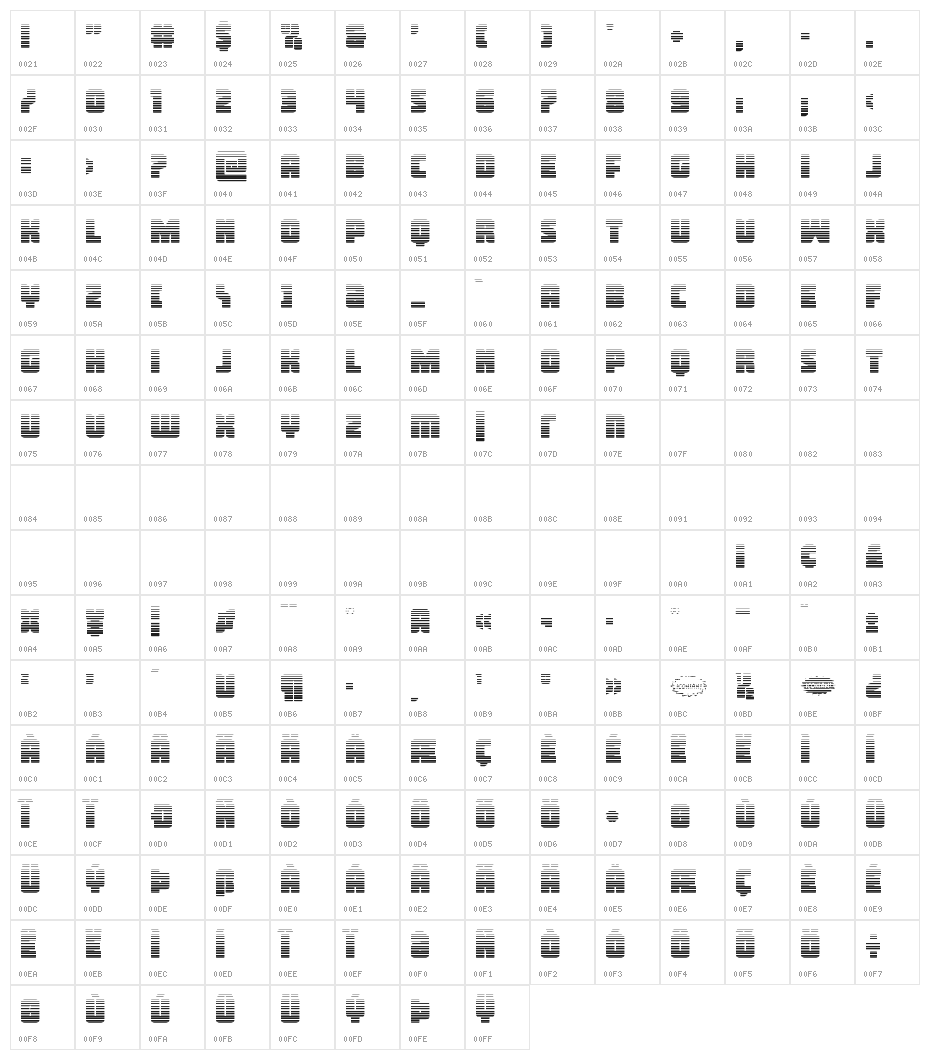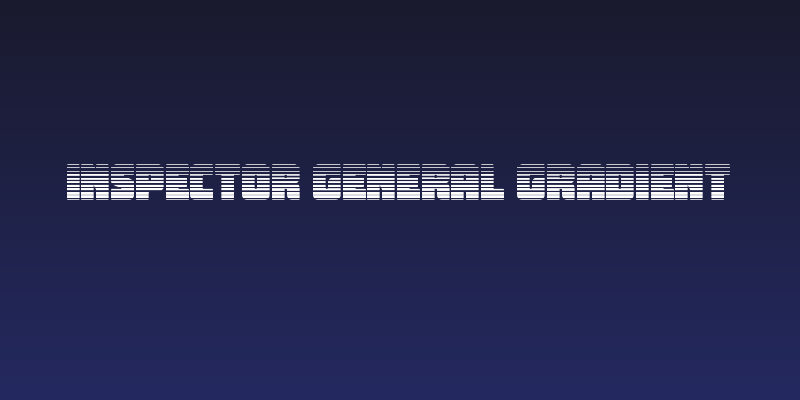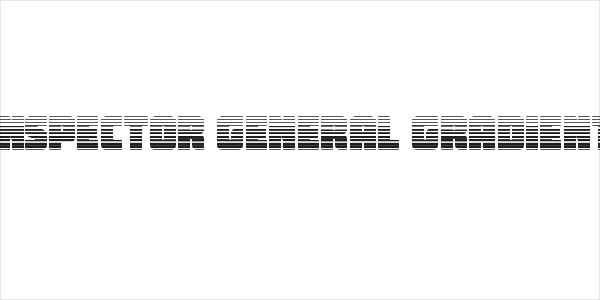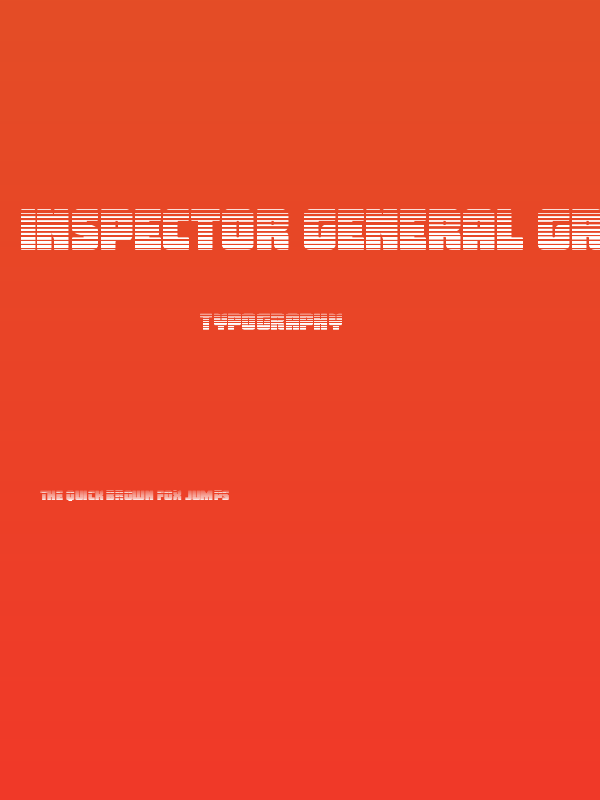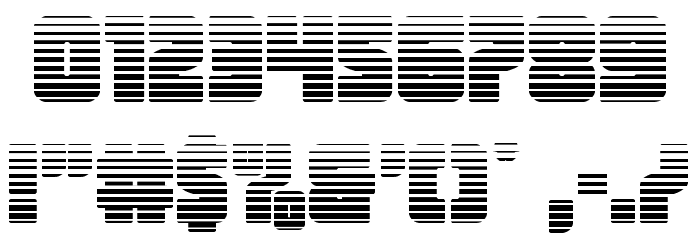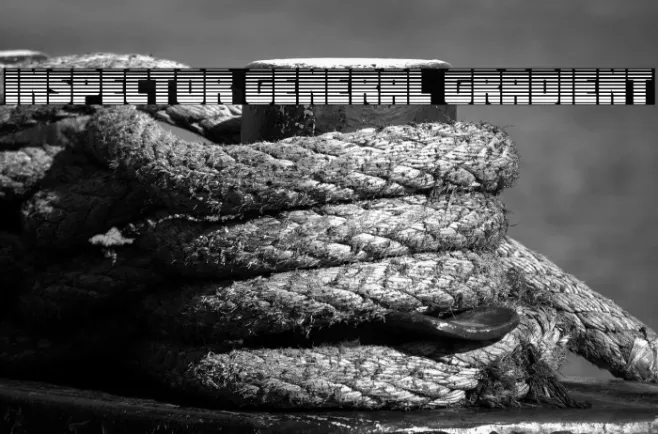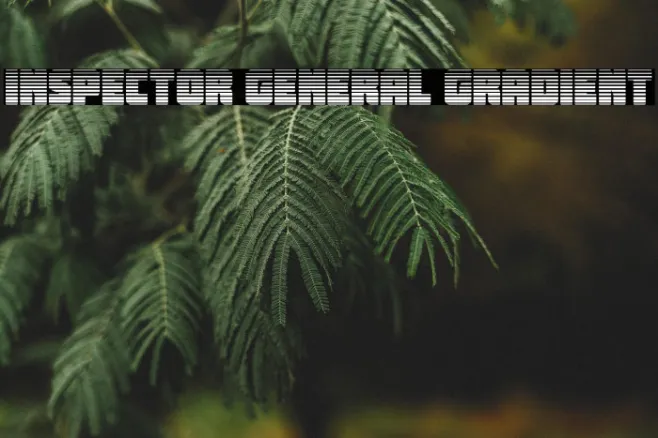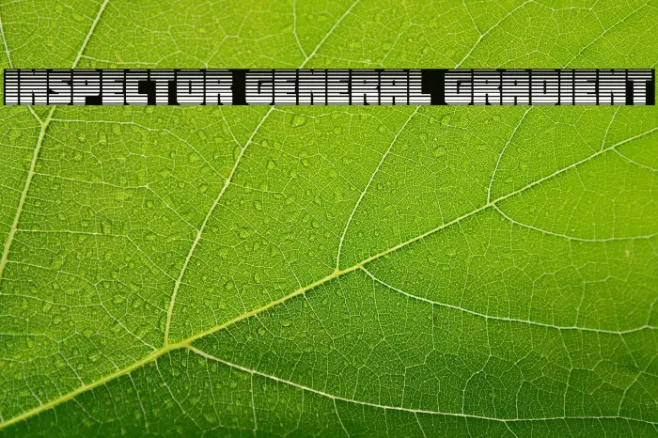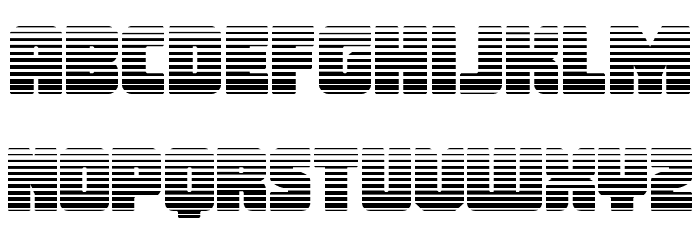
Inspector General Gradient Font
Inspector General Gradient Description
This font features a bold, geometric design with a distinctive striped pattern running horizontally across each character. The letters are uppercase, with a strong, modern aesthetic that makes them stand out. The stripes create a sense of movement and depth, giving the font a dynamic and futuristic feel. The characters are evenly spaced, maintaining a uniform appearance that enhances readability despite the intricate design. The numbers and special characters follow the same style, ensuring consistency throughout. This font is ideal for projects that require a bold statement and a modern touch.